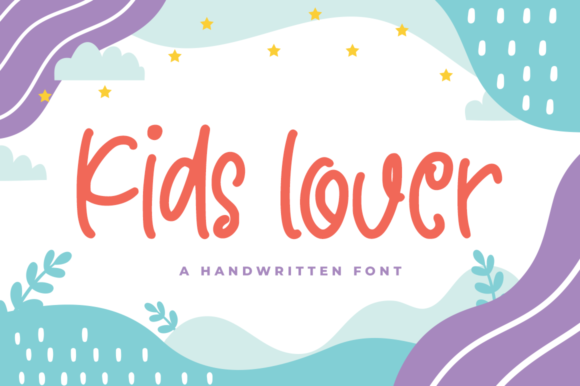
Unleash the boundless creativity of Kids Lover Font, a display font designed to ignite joy and individuality in your projects. This captivating font family brims with playful energy, making it the perfect choice for adding a touch of whimsy and charm to any design.
Express your unique style with Kids Lover Font, a vibrant and dynamic display font that embodies the spirit of childhood. Its playful and carefree vibe is sure to capture the attention of your audience, making your designs truly unforgettable.
Bring your imagination to life with Kids Lover Font, a font family that sparks creativity and inspires endless possibilities. Its playful and energetic personality is perfect for adding a touch of fun and excitement to any project, whether it's a children's book, a school project, or a fun-filled adventure.
With Kids Lover Font, you'll discover a world where imagination reigns supreme. Its captivating curves and playful strokes add a touch of magic to any design, transforming ordinary words into extraordinary works of art. Let your creativity soar as you explore the endless possibilities of this enchanting font family.